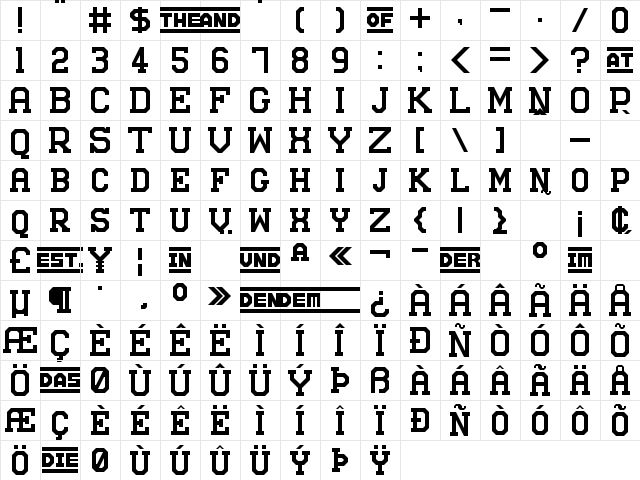
Stuttgart Messe Regular
Design Context for Stuttgart Messe Typeface
Stuttgart Messe offers clean, dependable letterforms without strong stylistic allegiance, making it a practical choice for designers who need flexibility.
Pro Tip: Use Stuttgart Messe in both headline and body roles to test its range before committing to a single application.